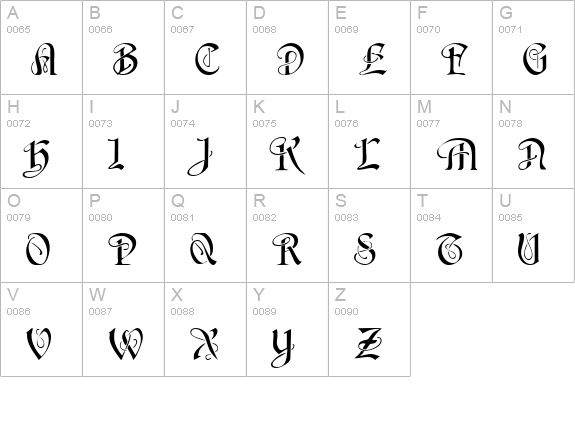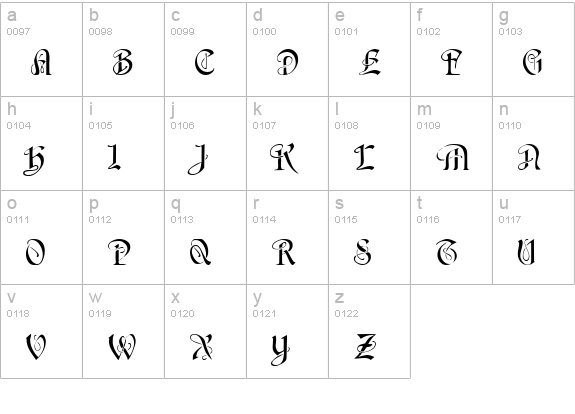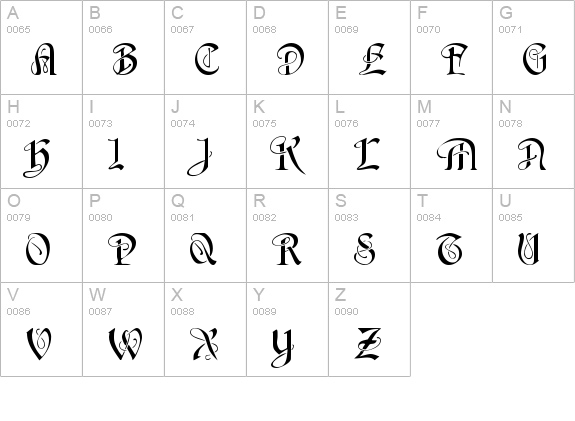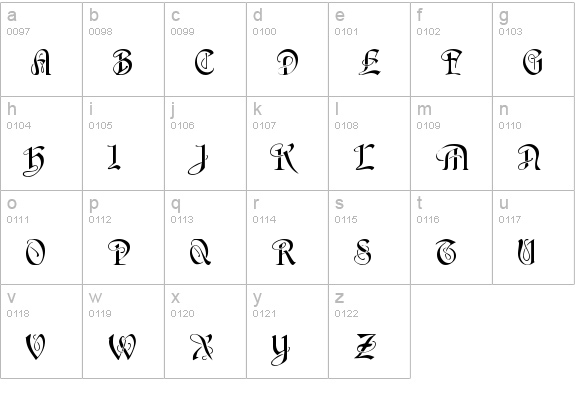
CollingswoodSCapsSSK Font Details
CollingswoodSCapsSSK font is a charming and elegant typeface that exudes sophistication and style. Its unique design features swirly capitals with delicate serifs, giving it a timeless and classic look. Perfect for adding a touch of luxury to your projects, this font is ideal for invitations, branding, and other creative endeavors. The best part? CollingswoodSCapsSSK font is available for free download at FontsMarket.com. Whether you're a designer looking to elevate your work or simply someone who appreciates beautiful typography, this font is sure to make a statement. Don't miss out on the opportunity to enhance your designs with this exquisite typeface. Download CollingswoodSCapsSSK font today and let your creativity shine!